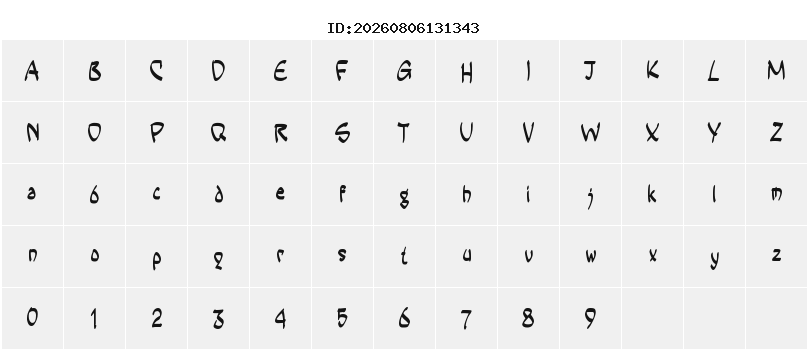
Oplo Sans Preview
• Font Name: Oplo Sans
• Designer: wates awal
About Oplo Sans.ttf
Oplo Sans.ttf is a modern, elegant sans-serif font designed for ultimate readability and visual harmony. Perfect for branding, headlines, web design, and print materials.